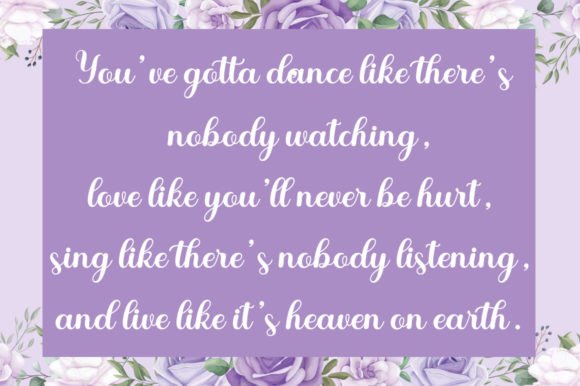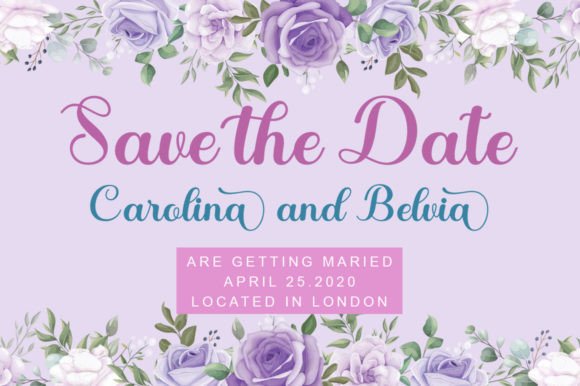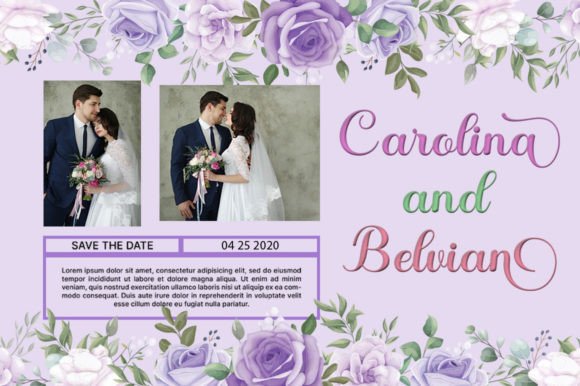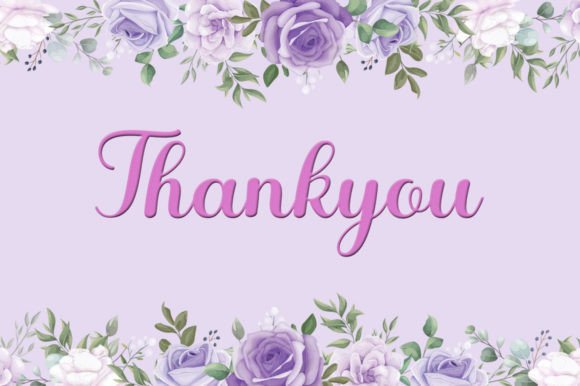
Introducing Devina Font: The Sweet and Versatile Handwritten Font for Designers and Crafters
Are you a designer or crafter looking for a font that can add a touch of sweetness and elegance to your projects? Look no further than Devina Font, a beautiful handwritten font that is perfect for a wide range of applications. In this article, we’ll take a closer look at Devina Font and explore its features, benefits, and uses.
What is Devina Font?
Devina is a sweet, versatile, and flexible handwritten font that is designed to help you create stunning logos, titles, corporate and brand identities, and apparel designs. This font is perfect for designers and crafters who want to add a personal touch to their projects and make them stand out from the crowd.
Devina Font is a romantic and cheerful font that can turn any project idea into a work of art. Its elegant and flowing lines make it perfect for creating beautiful and eye-catching designs that are sure to impress. Whether you’re designing a logo, creating a brand identity, or making a craft project, Devina Font is the perfect choice.
Key Features of Devina Font
So, what makes Devina Font so special? Here are some of its key features:
- Sweet and Versatile: Devina Font is a sweet and versatile font that can be used for a wide range of applications, from logos and titles to corporate and brand identities and apparel designs.
- Handwritten: Devina Font is a handwritten font that adds a personal touch to any project. Its elegant and flowing lines make it perfect for creating beautiful and eye-catching designs.
- PUA Encoded: Devina Font is PUA encoded, which means you can access all the glyphs and sweeps easily. This makes it easy to use and customize the font to suit your needs.
- Romantic and Cheerful: Devina Font is a romantic and cheerful font that can add a touch of elegance and sophistication to any project.
Uses of Devina Font
Devina Font is a versatile font that can be used for a wide range of applications, including:
- Logo Design: Devina Font is perfect for creating stunning logos that are sure to impress. Its elegant and flowing lines make it perfect for creating beautiful and eye-catching logos.
- Title Design: Devina Font can be used to create beautiful and eye-catching titles for books, magazines, and other publications.
- Corporate and Brand Identity: Devina Font can be used to create stunning corporate and brand identities that are sure to impress. Its elegant and flowing lines make it perfect for creating beautiful and eye-catching designs.
- Apparel Design: Devina Font is perfect for creating stunning apparel designs that are sure to impress. Its elegant and flowing lines make it perfect for creating beautiful and eye-catching designs.
Benefits of Using Devina Font
So, why should you use Devina Font for your projects? Here are some of the benefits of using this beautiful font:
- Elegant and Sophisticated: Devina Font adds a touch of elegance and sophistication to any project. Its elegant and flowing lines make it perfect for creating beautiful and eye-catching designs.
- Versatile: Devina Font is a versatile font that can be used for a wide range of applications, from logos and titles to corporate and brand identities and apparel designs.
- Easy to Use: Devina Font is easy to use and customize, thanks to its PUA encoding. This makes it easy to access all the glyphs and sweeps easily.
- Unique: Devina Font is a unique font that can help you stand out from the crowd. Its elegant and flowing lines make it perfect for creating beautiful and eye-catching designs that are sure to impress.
| Author | Letter Muray |
In conclusion, Devina Font is a beautiful handwritten font that is perfect for designers and crafters who want to add a touch of sweetness and elegance to their projects. Its elegant and flowing lines make it perfect for creating beautiful and eye-catching designs that are sure to impress. With its PUA encoding, Devina Font is easy to use and customize, making it a great choice for a wide range of applications.